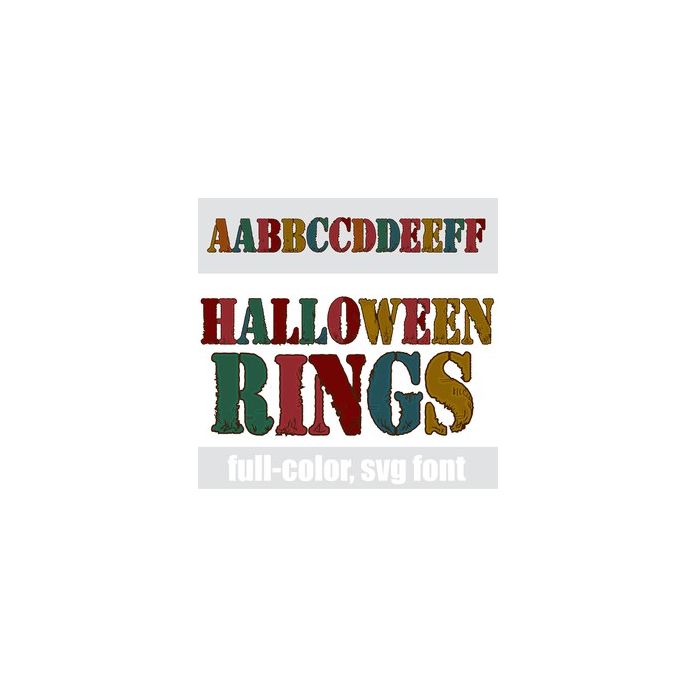
This grunge like font is filled with autumn colors. There is an alt case w/ additional colors you can access through your system or Silhouette's glyph map.